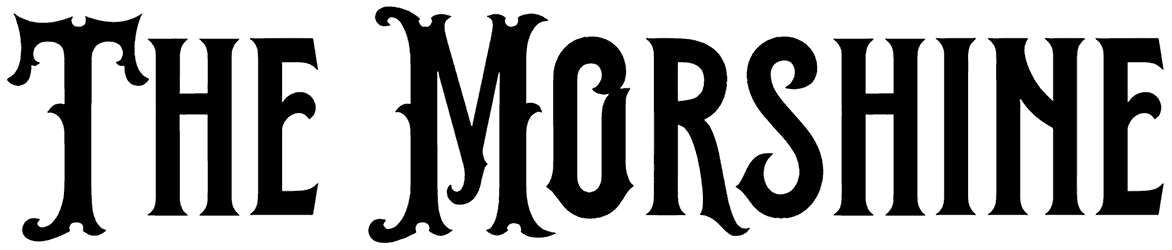
The Morshine Font
If you love the vintage and lovely outdoors, this item can bring it to your intended design. As a retro font, The Morshine has memorable letters that always have many fans. No lowercase for the offer, but it has two sets of capitals and could be an entertaining show for various projects like movie ads, flyers, logos, apparel, and so on.